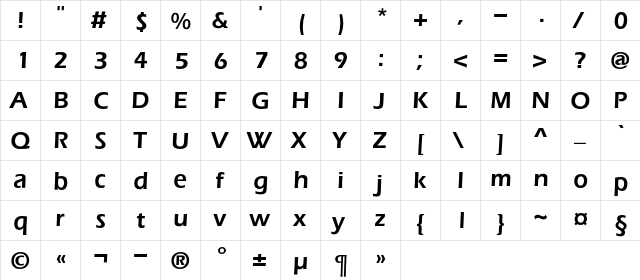
EverestDemi Regular
Design Context for EverestDemi Typeface
EverestDemi is a composed and adaptable typeface that performs quietly and consistently across a wide range of design contexts.